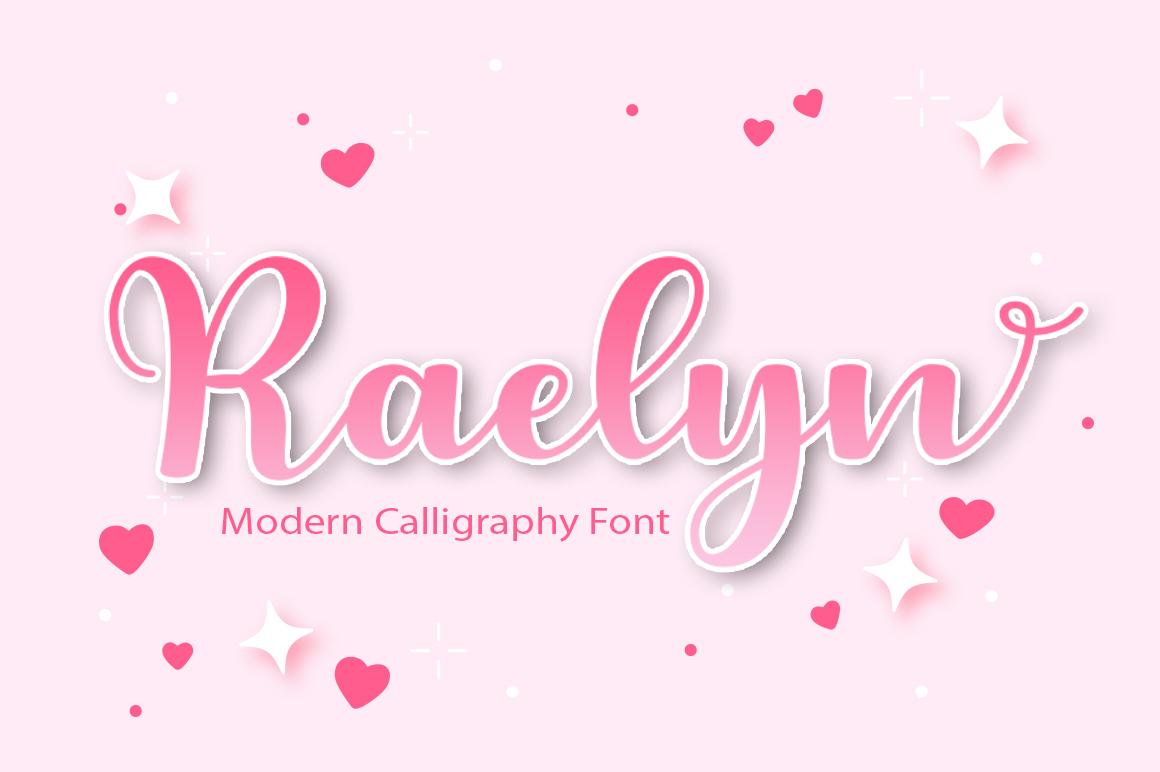
Raelyn Font Description
Raelyn is a ravishing script font, with an adaptable and readable style. It looks stunning on wedding invitations, thank you cards, quotes, greeting cards, logos, business cards and every other design which needs a handwritten touch. This font is PUA encoded which means you can access all of the glyphs and swashes with ease!